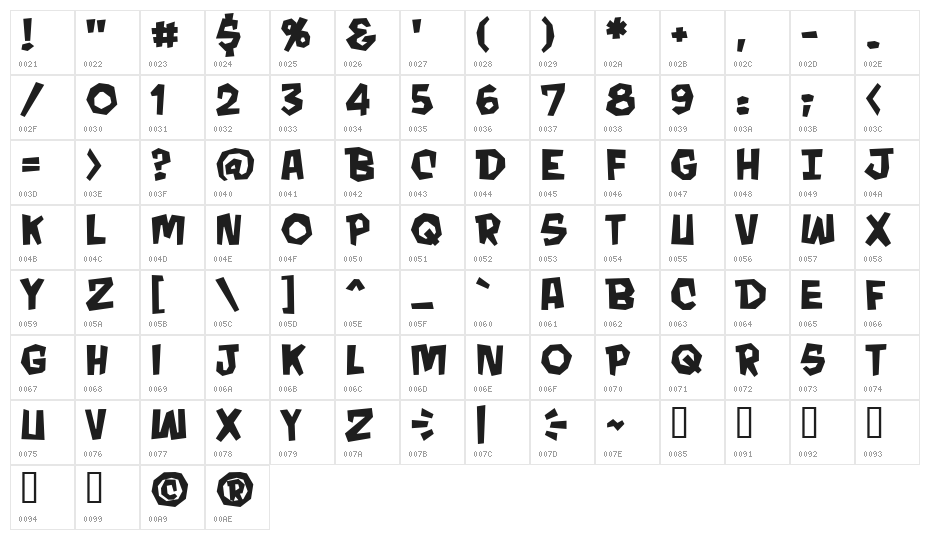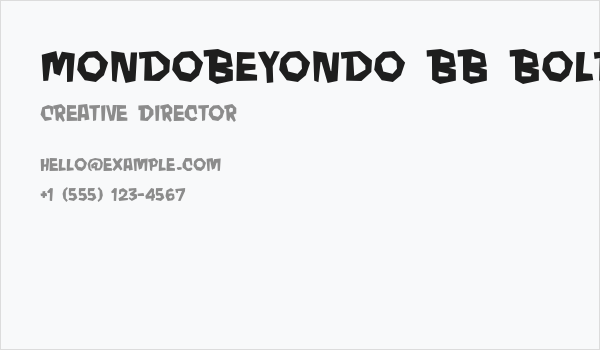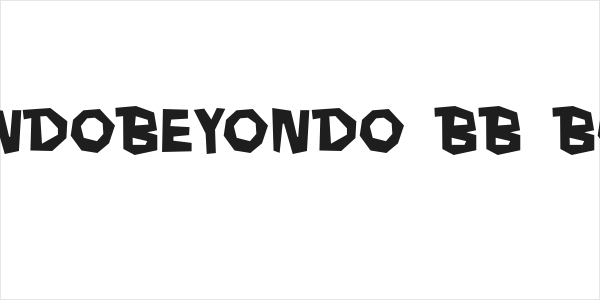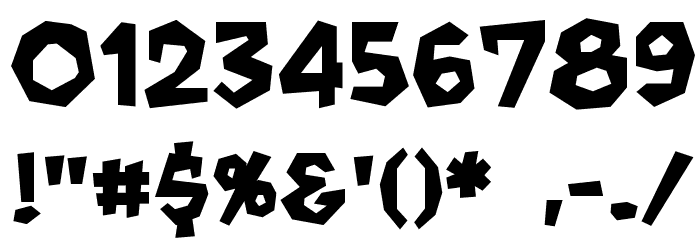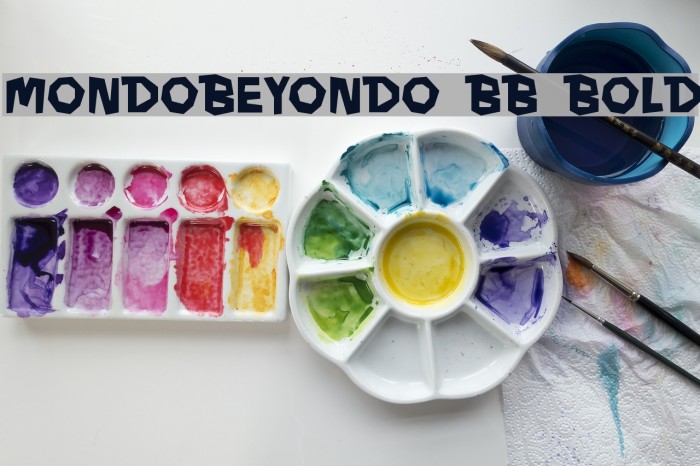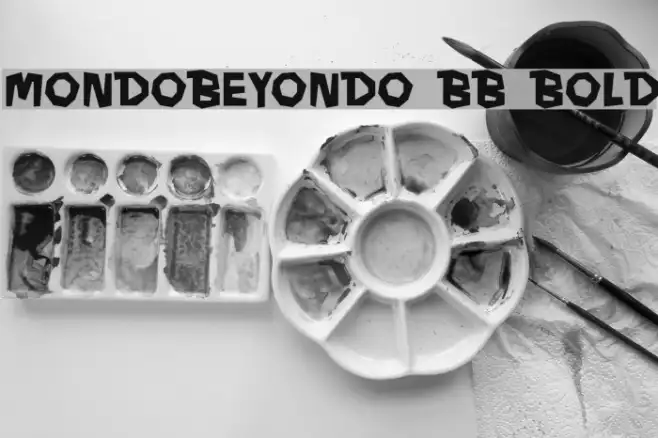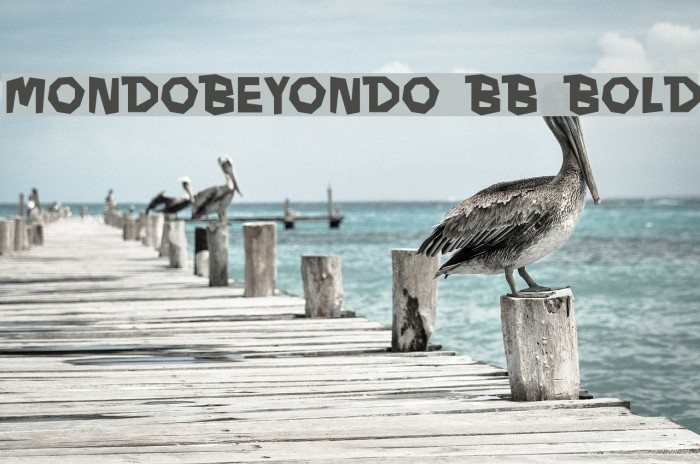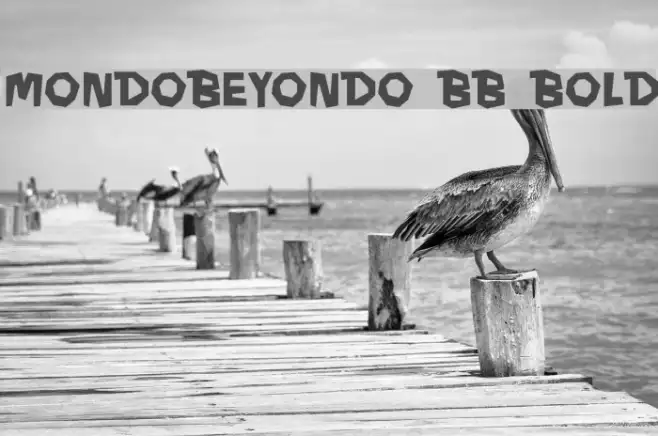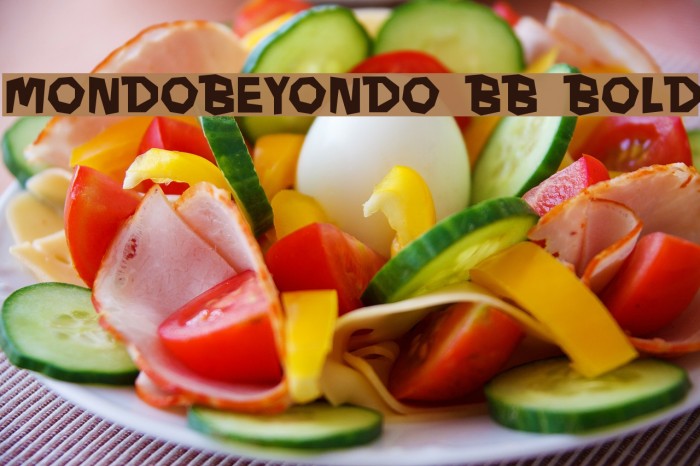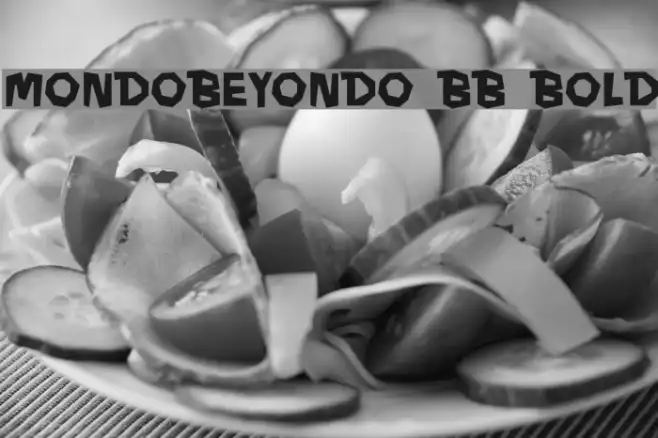
MondoBeyondo BB Bold Font
MondoBeyondo BB Bold Description
This font features a bold and dynamic style with a playful, geometric design. The characters are constructed with sharp angles and a slightly irregular form, giving it a unique and eye-catching appearance. The uppercase letters are particularly striking, with a strong presence that commands attention. The numbers and special characters maintain the same boldness and angularity, ensuring consistency throughout. This font is ideal for projects that require a fun and energetic vibe, making it perfect for creative and unconventional designs.
| Proposed Projects | Ideal for posters, logos, video game graphics, and any project needing a bold, playful touch. |